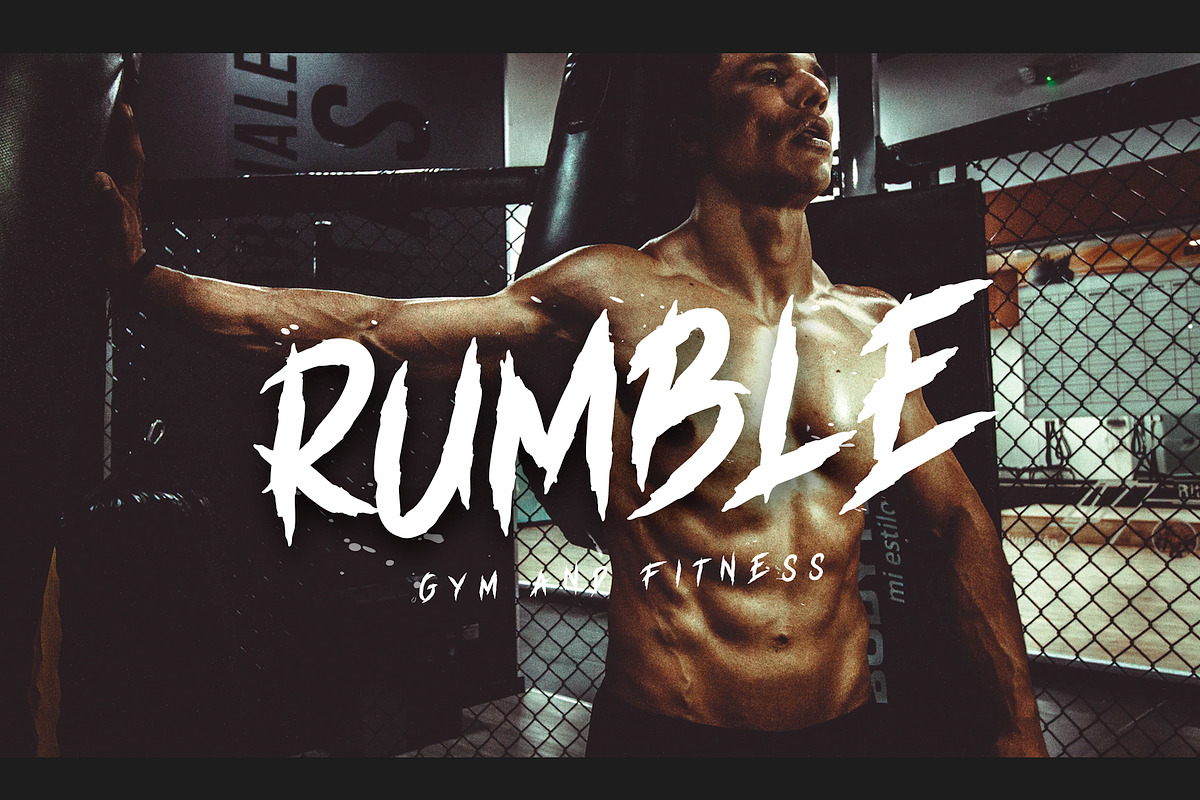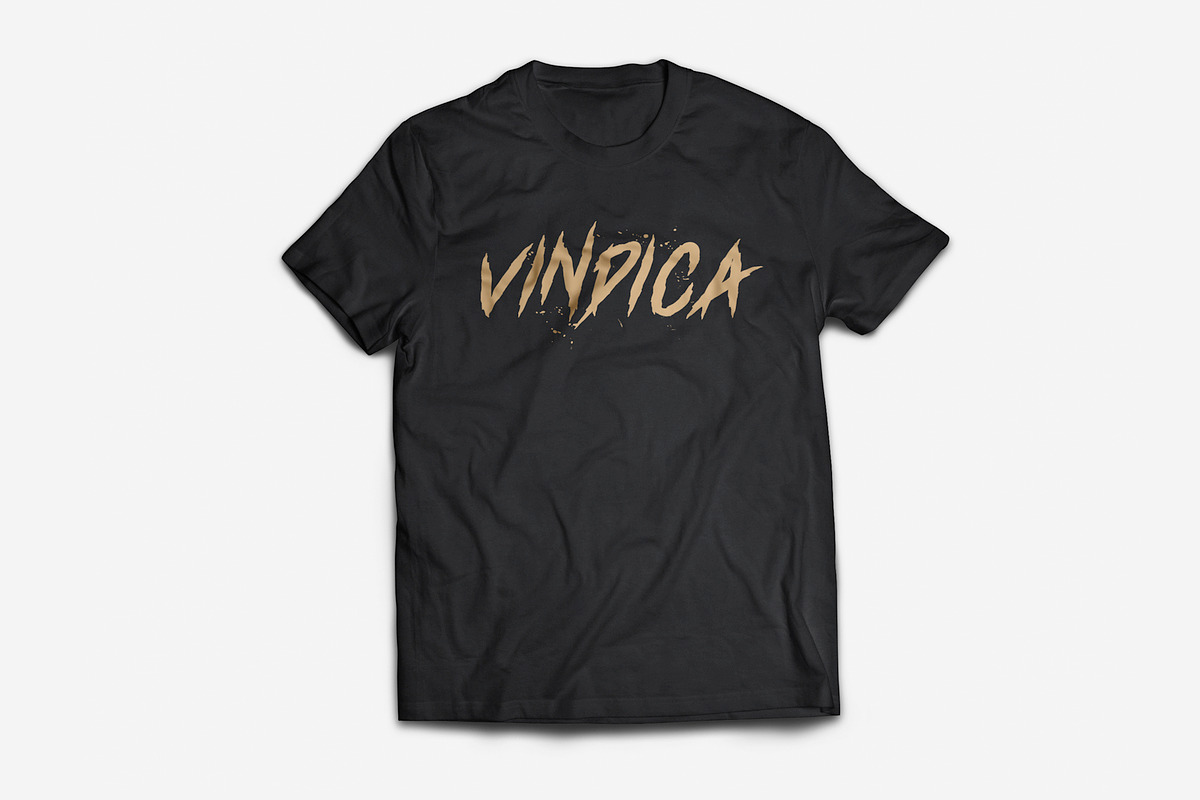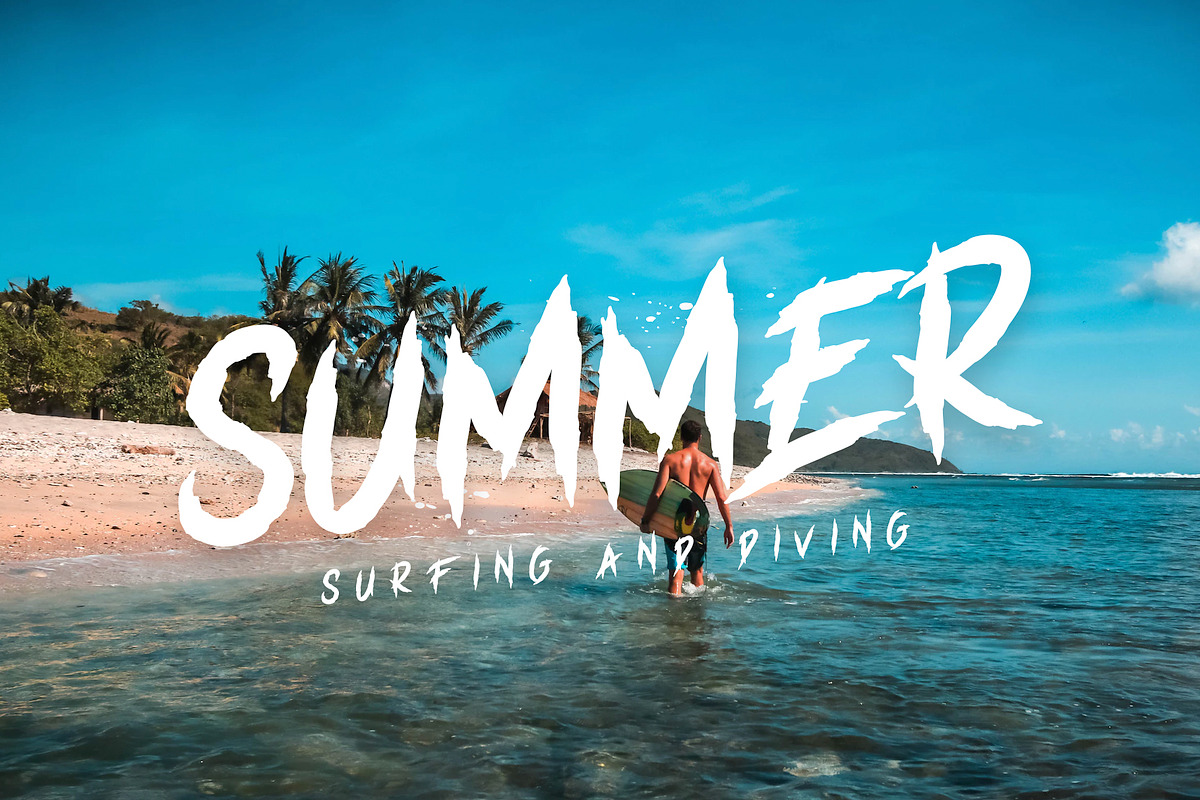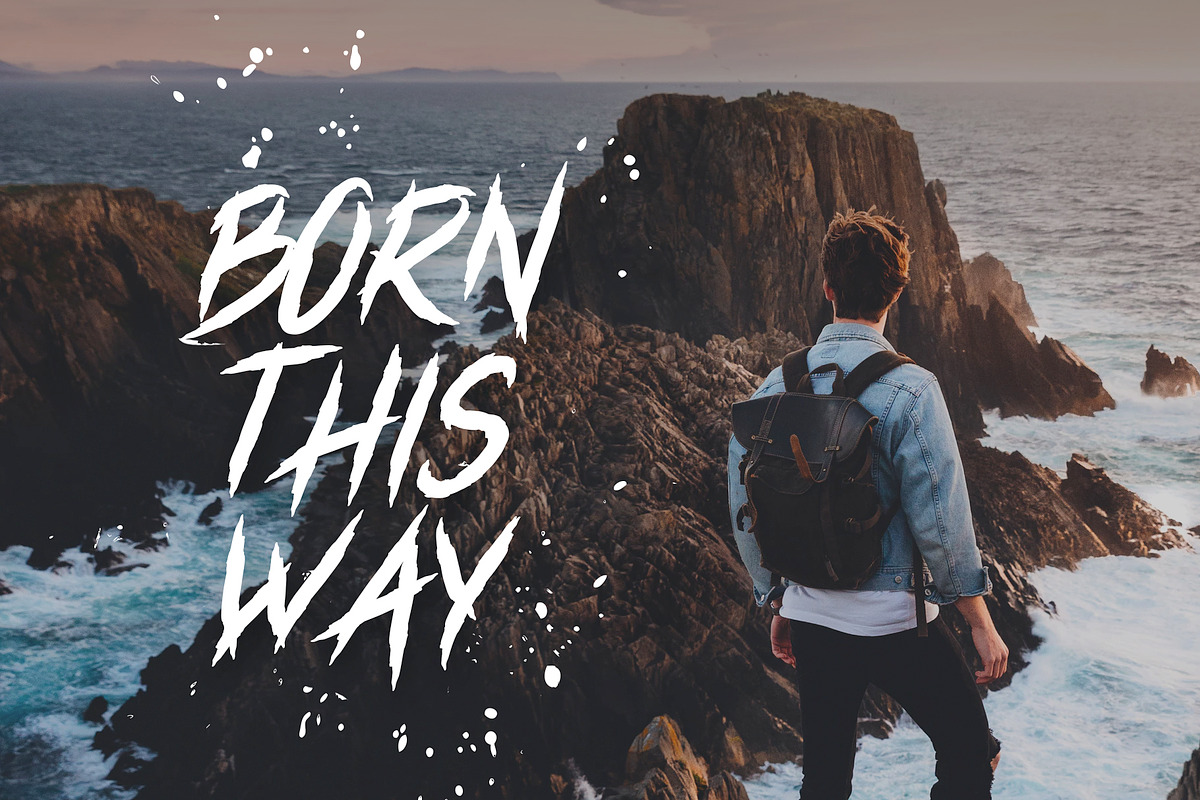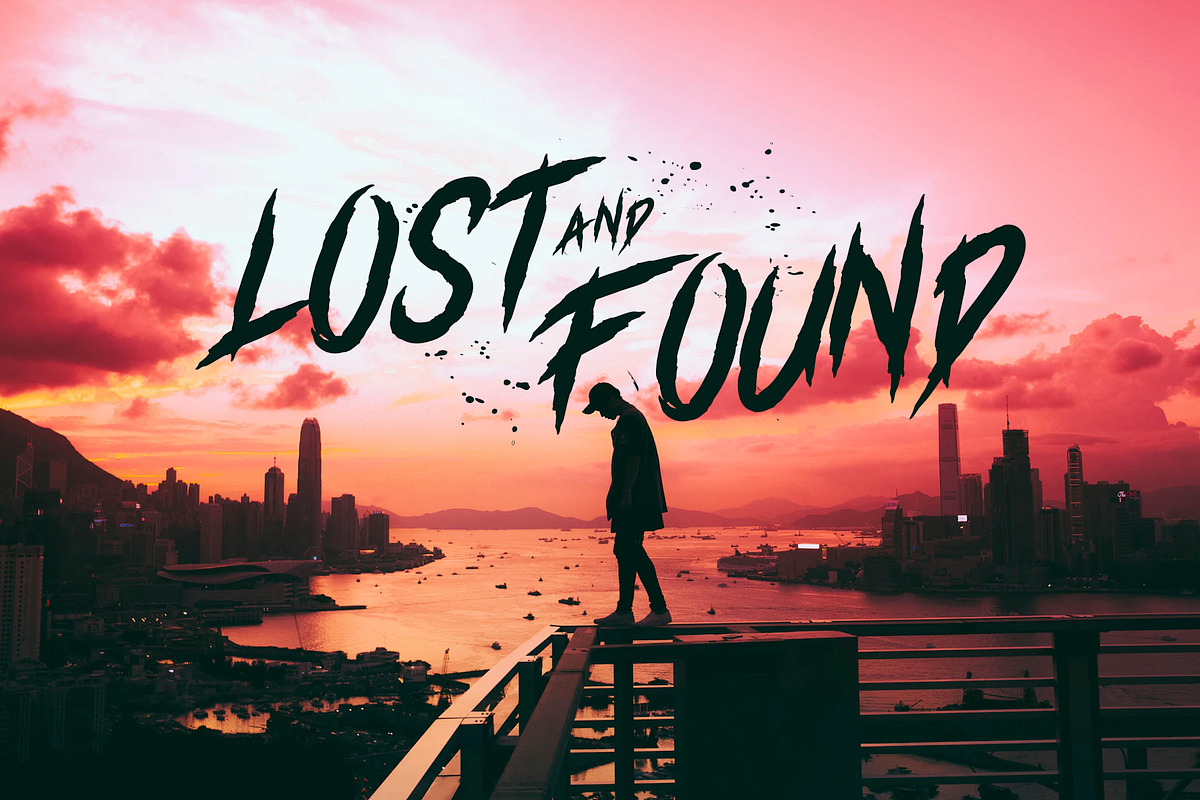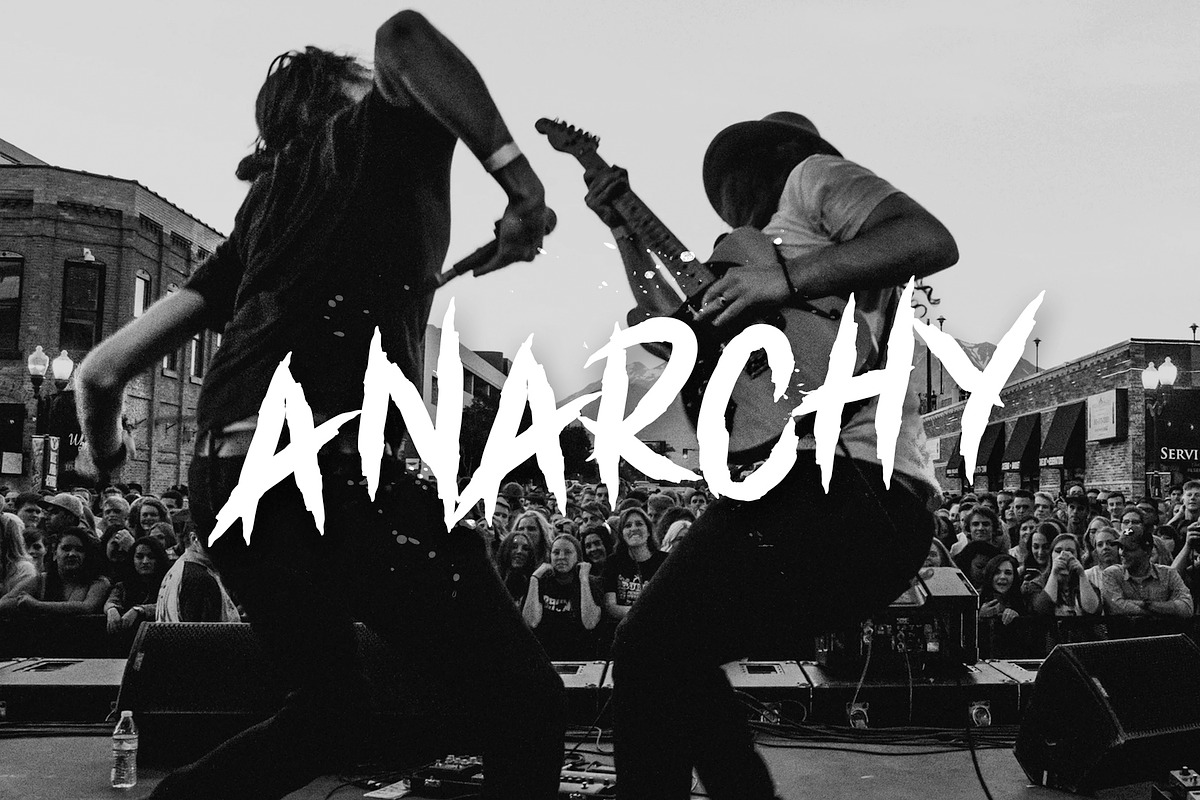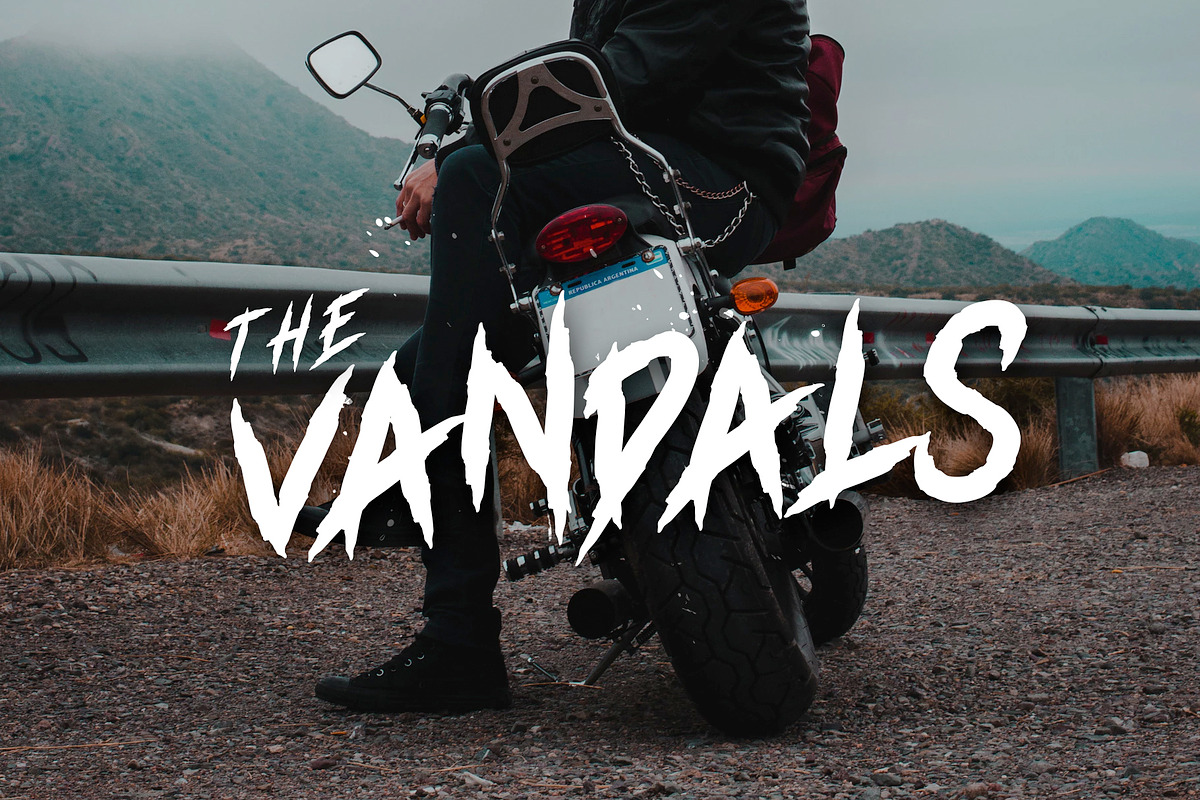
Vindica - Rebel Font
Create a Extraordinary Typography / lettering results by using Vindica - Rebel Font. Best match for logos, header, Titles, Prints & other Creative process possibilities.
Ton of glyphs included
Vindica - Rebel Font by rubirubiko fits naturally into Branding, posters, packaging, typography.